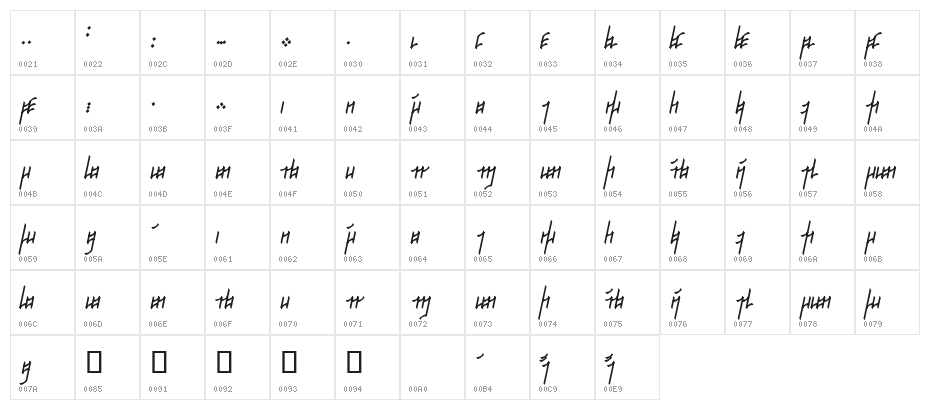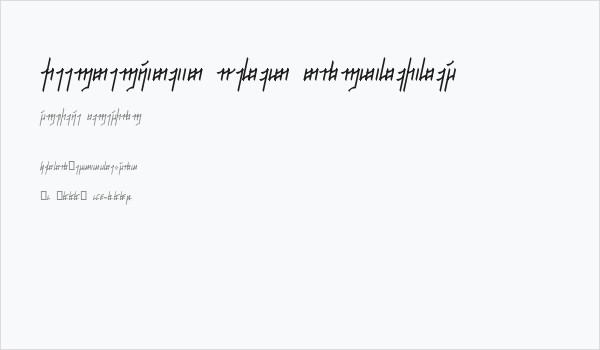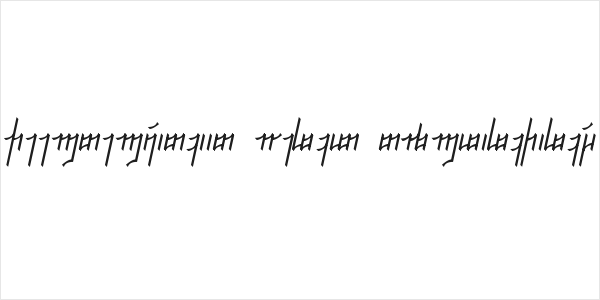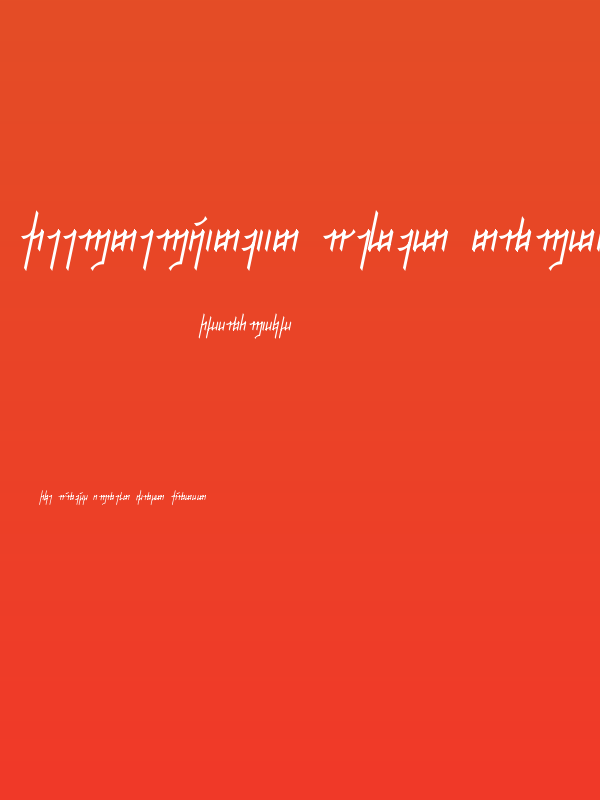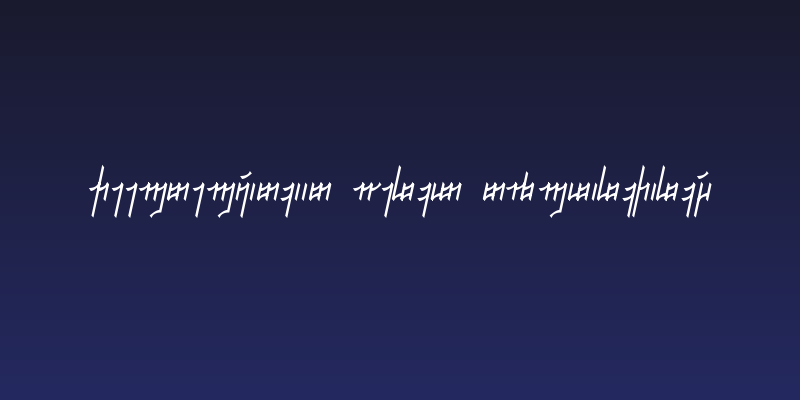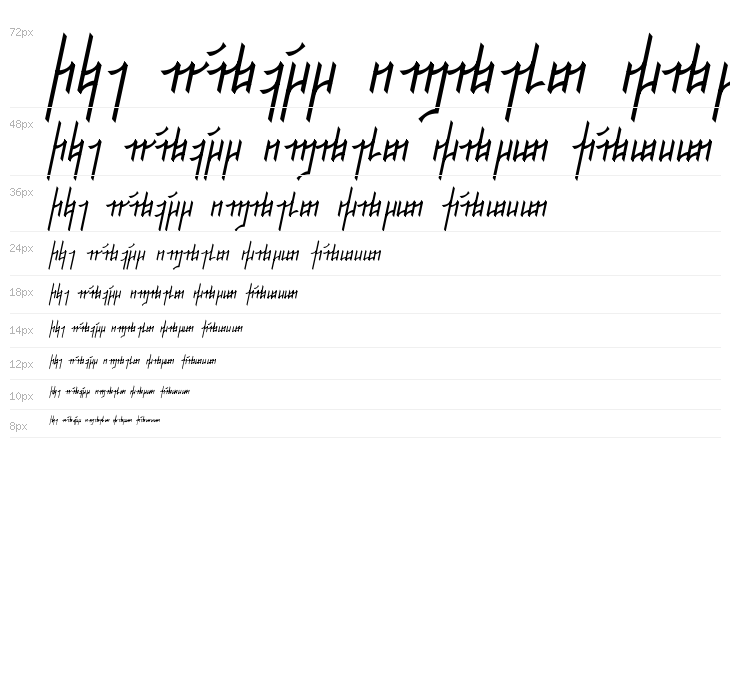
Jeernervaniaan Qelis NormalItalic Font
Jeernervaniaan Qelis NormalItalic Description
This font features a highly stylized, angular design with sharp, pointed edges and a consistent slant, giving it a dynamic and energetic appearance. The characters are closely spaced, enhancing the compact and cohesive look. The strokes are bold and uniform, with a medium contrast between thick and thin lines, contributing to its striking visual impact. The overall style is decorative and modern, making it suitable for creative and artistic projects that require a unique and eye-catching typeface.
| Proposed Projects | Ideal for artistic posters, album covers, branding for edgy products, or any project needing a distinctive and modern touch. |